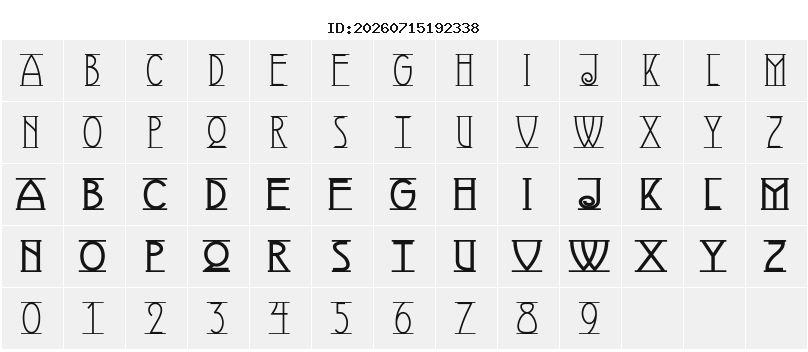
• Font Name: Avignon
• Full Font Name: Avignon
About Avignon.ttf
Avignon.ttf is a modern, elegant sans-serif font designed for ultimate readability and visual harmony. Perfect for branding, headlines, web design, and print materials.